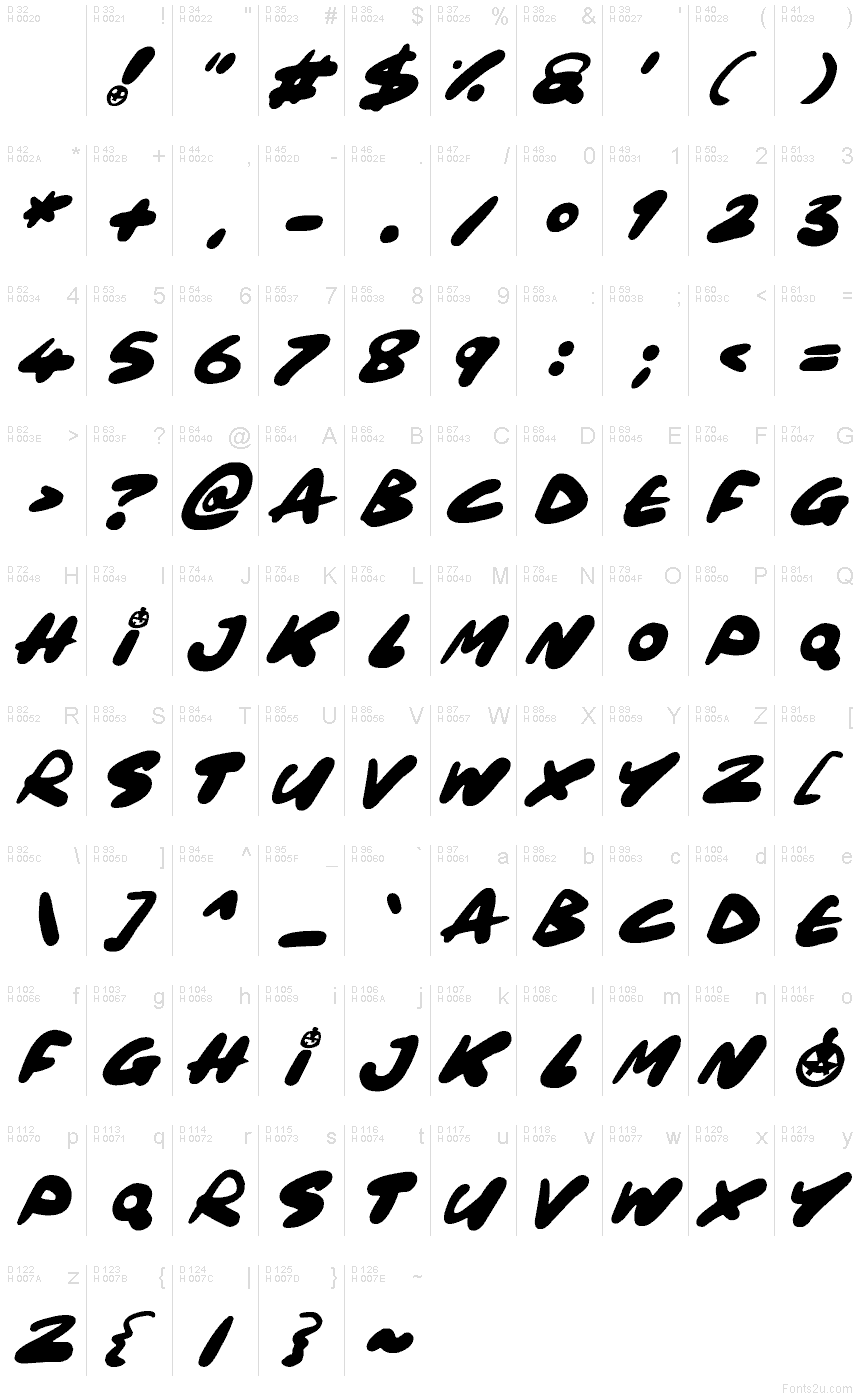
Halloween Time Italic
Halloween Time Italic font by Hawtpixel is a free Halloween brush script display font. As part of the Halloween Time family, it leans hard into the season with inky, slanted strokes and playful pumpkin-and-web vibes that read fast and feel hand-painted. The rhythm is bold and bouncy, so headlines pop without getting messy, and the italic swing adds just enough menace to keep things fun rather than grim.
Using Halloween Time Italic, you can nail party flyers, trick-or-treat posters, haunted house signage, seasonal banners, social posts, and candy labels. It shines on large titles and short phrases where the texture can breathe. For balance, pair this free font with a clean geometric sans for body copy, and give it a touch of extra tracking when set over dark, grainy backgrounds.